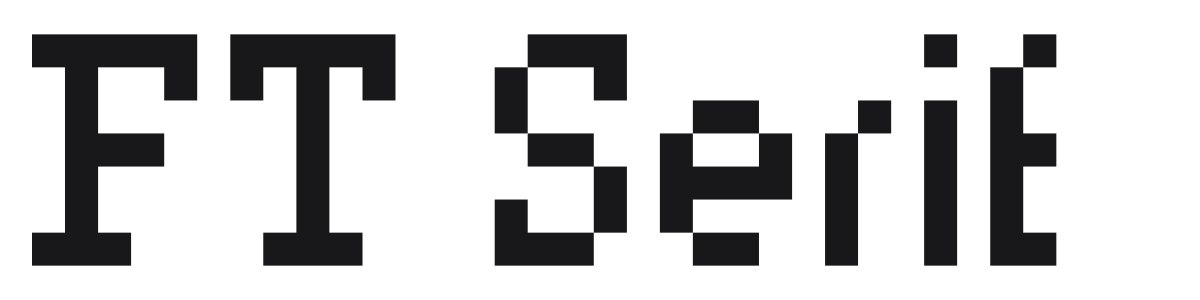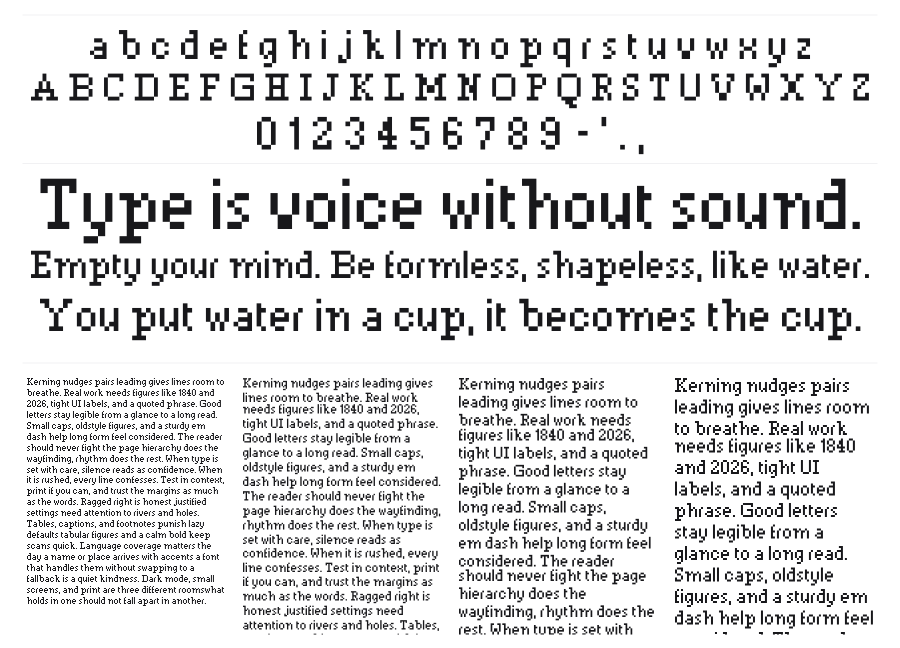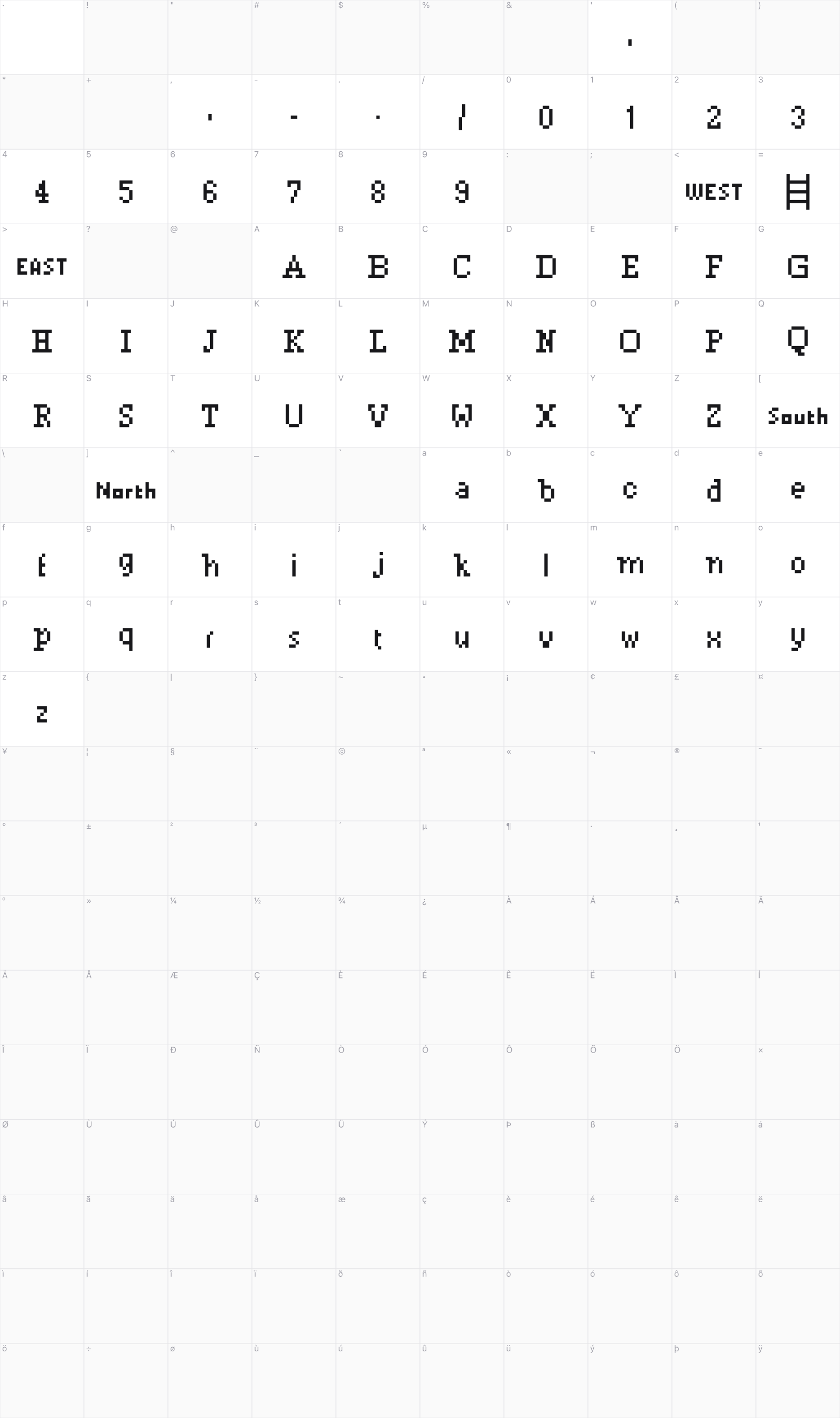
FT Serif
FT Serif is a pixel-grid bitmap serif that smuggles old-style serif structure into an 8-bit aesthetic. Each character is built from coarse square pixels, making the serif details visible but charmingly crude. It reads as a deliberate throwback to early screen typography, with enough character to stand out in retro-themed contexts.